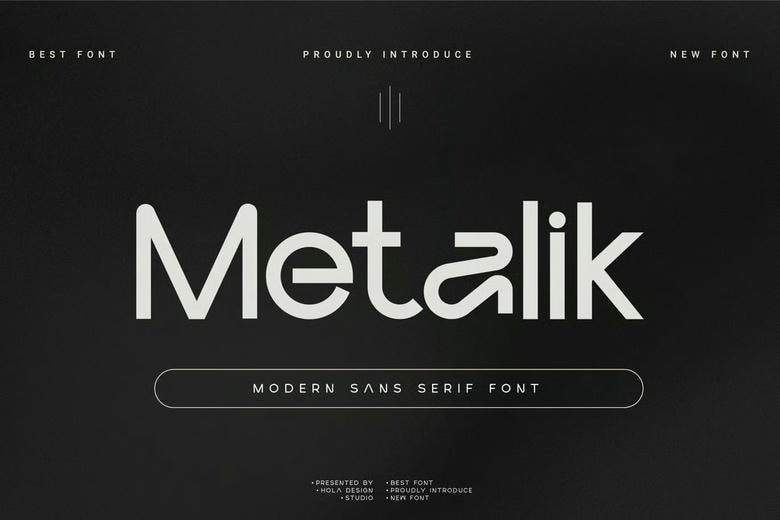
Metalik Font
Metalik is a sans serif typeface, Ready to use in your design such as labeling, movie sceen, poster, movie title, gigs, album covers, logos, and many more.
Metalik Sans Serif Font